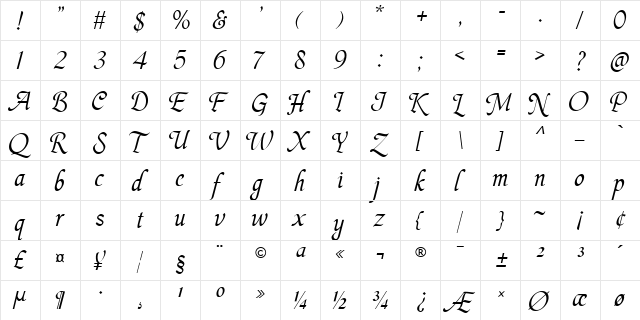
Hargalia Regular
| Foundry | Arterfak Project |
| Designer | Ahmad Ramzi Fahruddin |
Design Context for Hargalia Typeface
Hargalia offers clean, dependable letterforms without strong stylistic allegiance, making it a practical choice for designers who need flexibility.